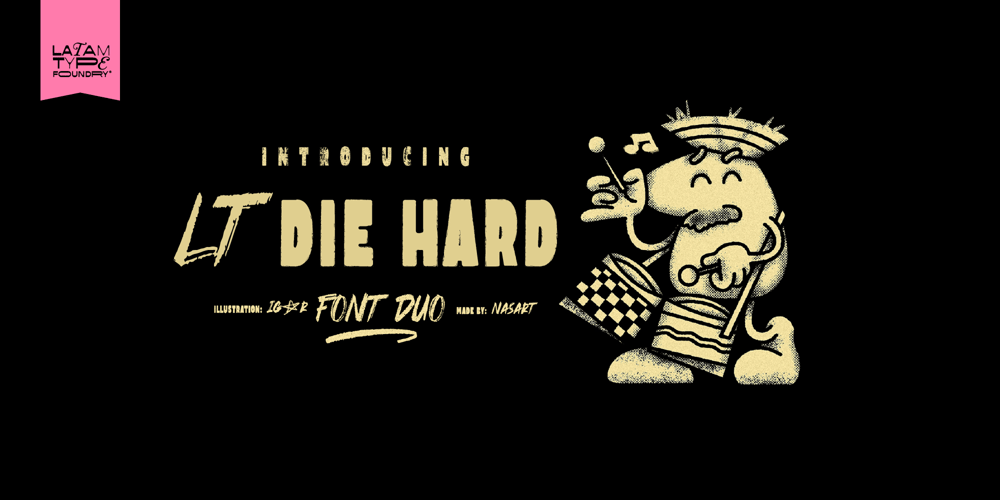
LT DIE HARD Font Family was designed by nasser Araujo and published by Latam Type Foundry. LT DIE HARD contains 3 styles and family package options. LT DIE-HARD FONT DUO+EXTRAS is a handcrafted typeface, carefully designed to capture the essence of strength and determination. With its horrible and worn strokes, this font transmits a sensation of resistance and solidity, Each letter is made in a unique style, creating a sense of movement and dynamism in the text. DIE-HARD typeface is ideal for projects requiring a strong and determined approach, such as posters, titles, logos…